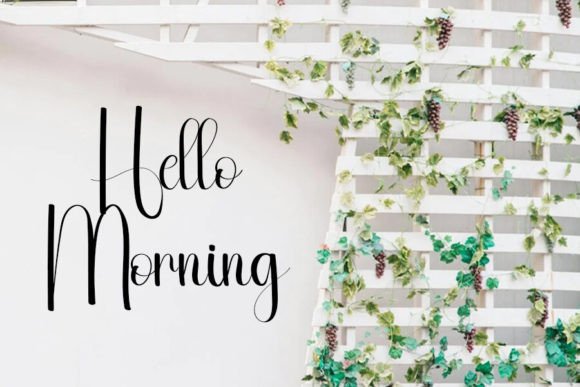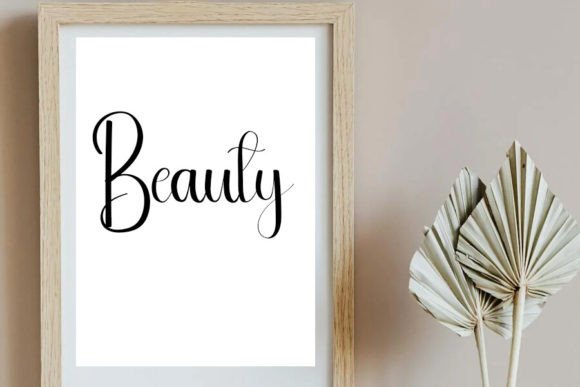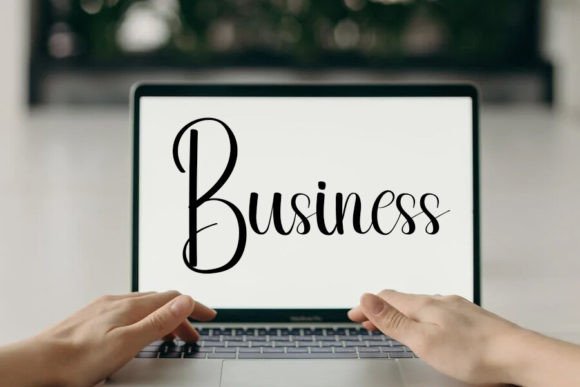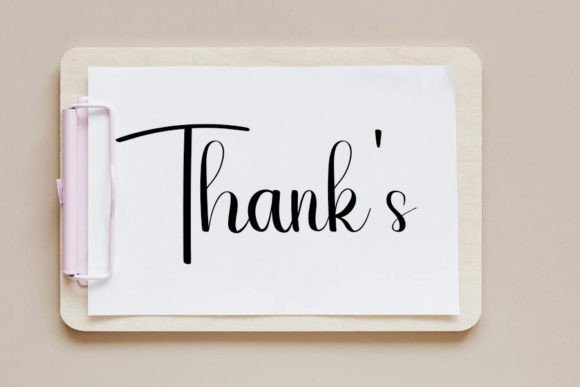
Introduction to Rainway Font
Rainway is a modern handwritten font that seamlessly combines elegance with a touch of whimsy.
Its fluid, organic strokes, and refined letterforms make it ideal for upscale packaging, branding, and editorial designs Bring a bespoke, artisanal feel to any project with the graceful allure of Rainway.